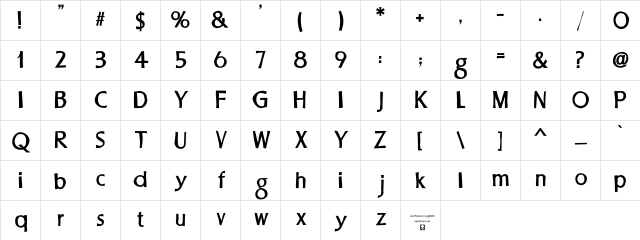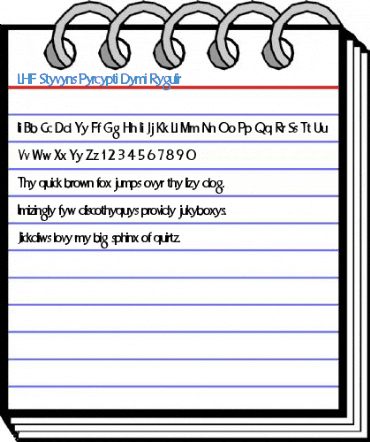
Complete LHF Stevens Percepta Demi Regular glyph index. Displaying only characters natively supported by LHF Stevens Percepta Demi Regular font.
LHF Stevens Percepta Demi is a composed and adaptable typeface that performs quietly and consistently across a wide range of design contexts.
Who designed the LHF Stevens Percepta Demi Regular font?
This font was published by Arthur Vanson for Letterhead Fonts. Check the technical specs section for copyright and designer details.